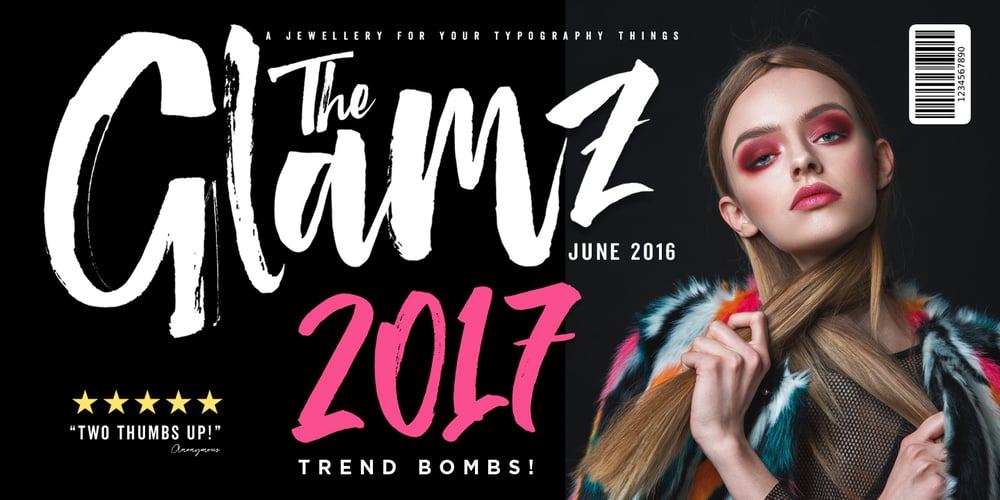
The Glamz Font Family was designed by Ian Irwan Wismoyo and published by Just Font You. The Glamz contains 1 styles and family package options. Meet The Glamz, a brand new auto-chic font. Designed to fulfil your trend-catching things with the edgy style and undeniable artsy look. Perfectly fit for your fashion branding stuff, handwriting logo, inspirational quote poster, oh well you name it.